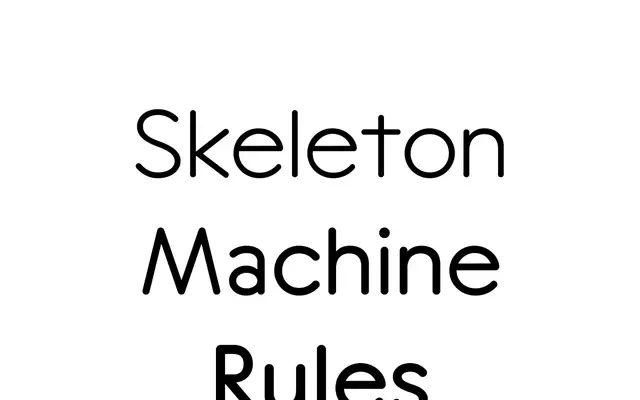
Axo
Abyme · Charles Mazé · 2021
A rounded geometric sans by Charles Mazé tracing a lineage from Johnston's essential forms through German pen nibs, French school scripts and technical drafting norms.
Rooted in writing models from Britain, Germany and France, the design traces a path from Edward Johnston's monolinear letterforms through the 'redis' nibs of Heintze & Blanckertz to the French 'norme E04-105' used in architecture and engineering. The rounded terminals are a direct translation of those pen nibs into type, and the geometric base favours primary forms over optical correction in the manner of technical and pedagogical lettering. Fifteen styles across three widths and five weights give the family the same flexibility the original norm allowed for shifts in width and weight.
A rounded geometric sans drawing on monolinear writing models and technical lettering traditions; the rounded terminals and geometric construction place it firmly in the geometric sans category with a distinct rounded variant character.